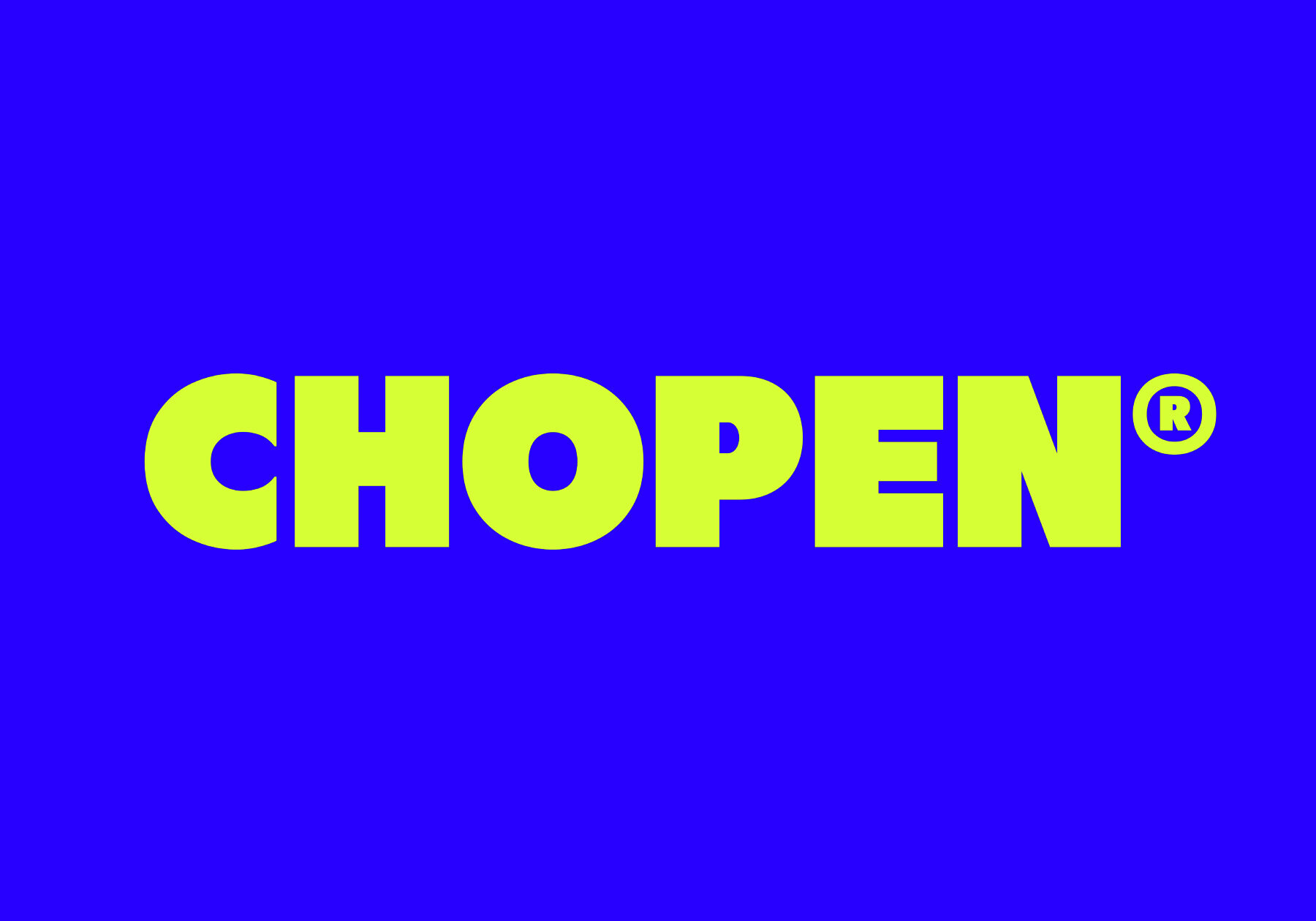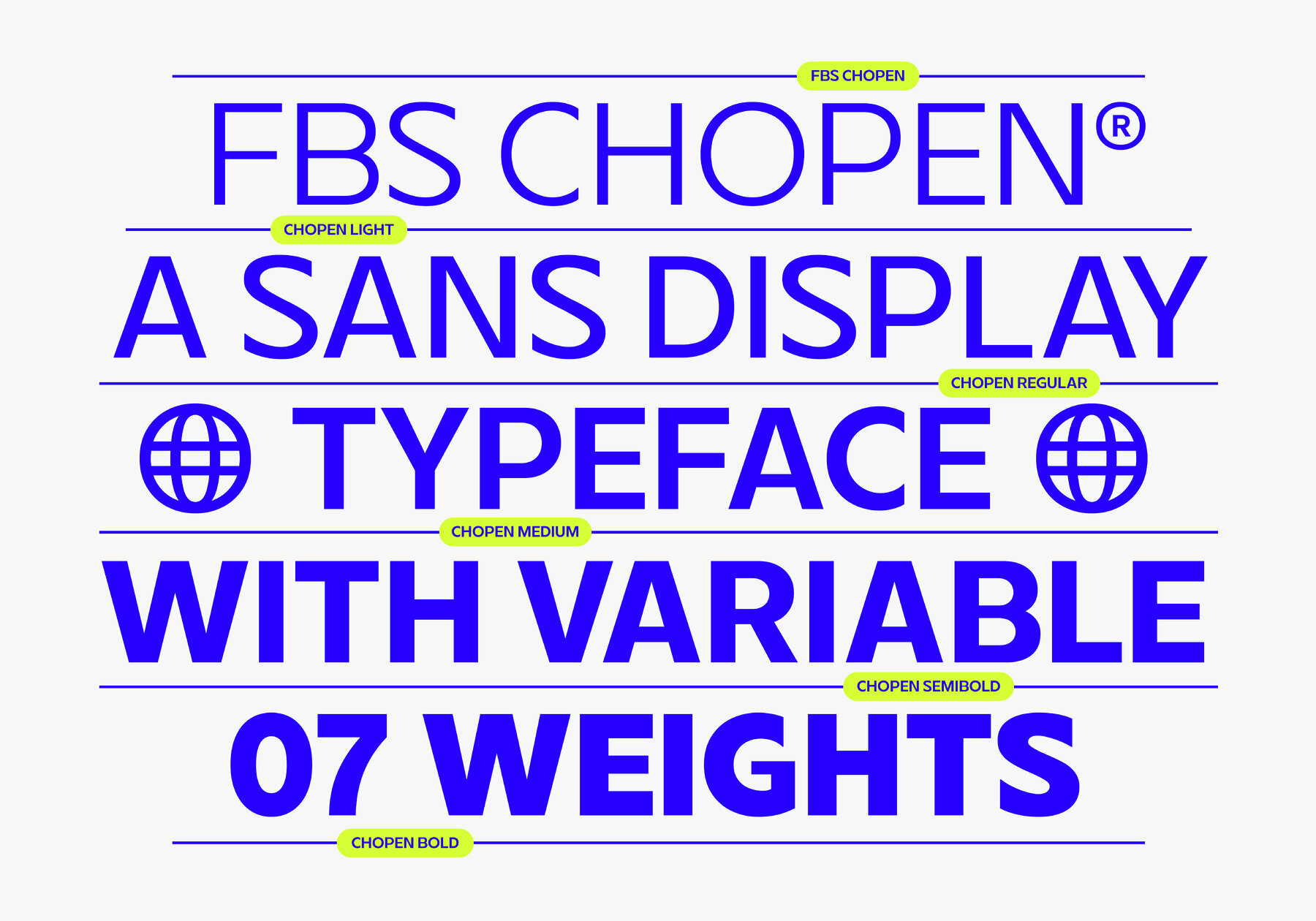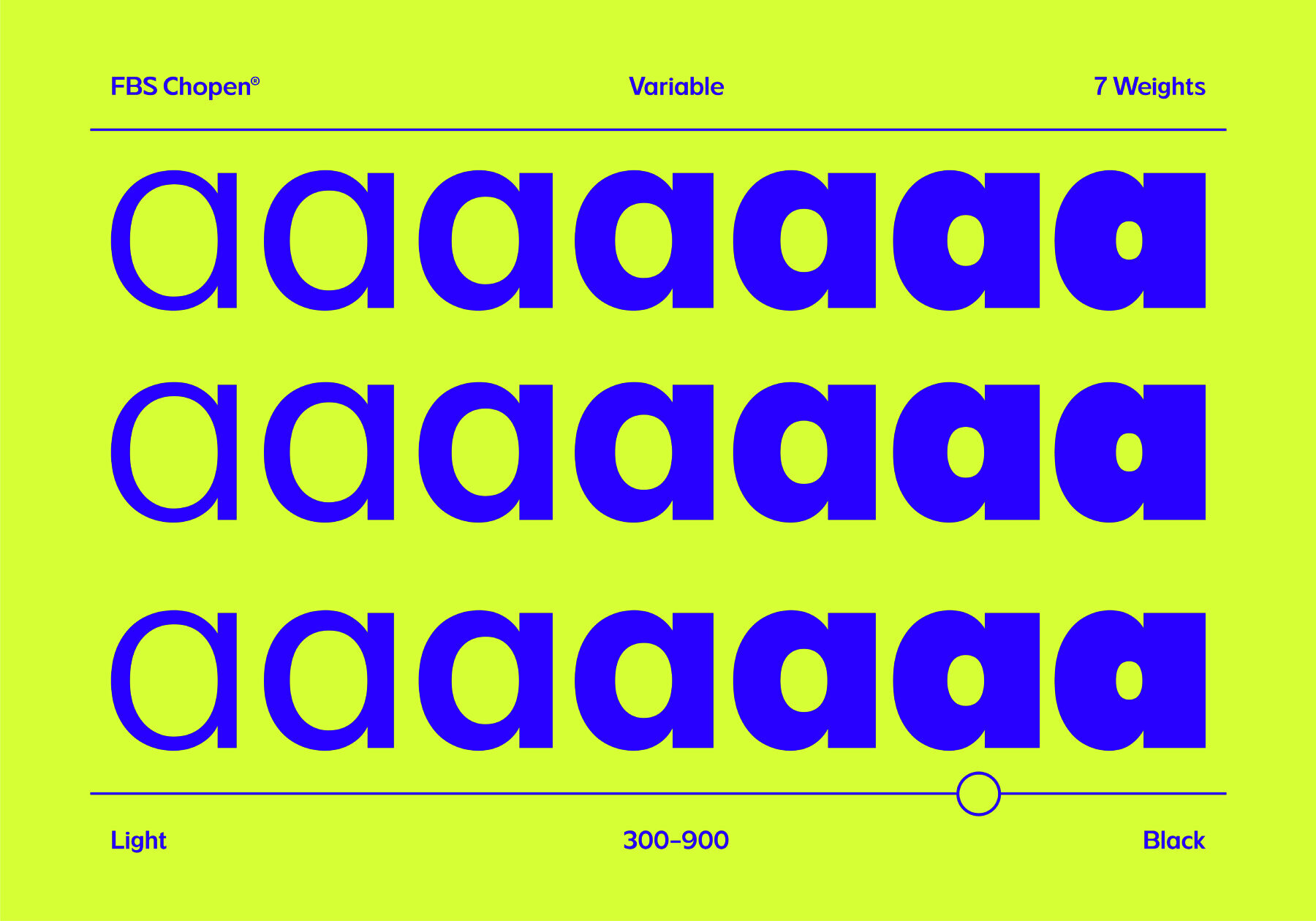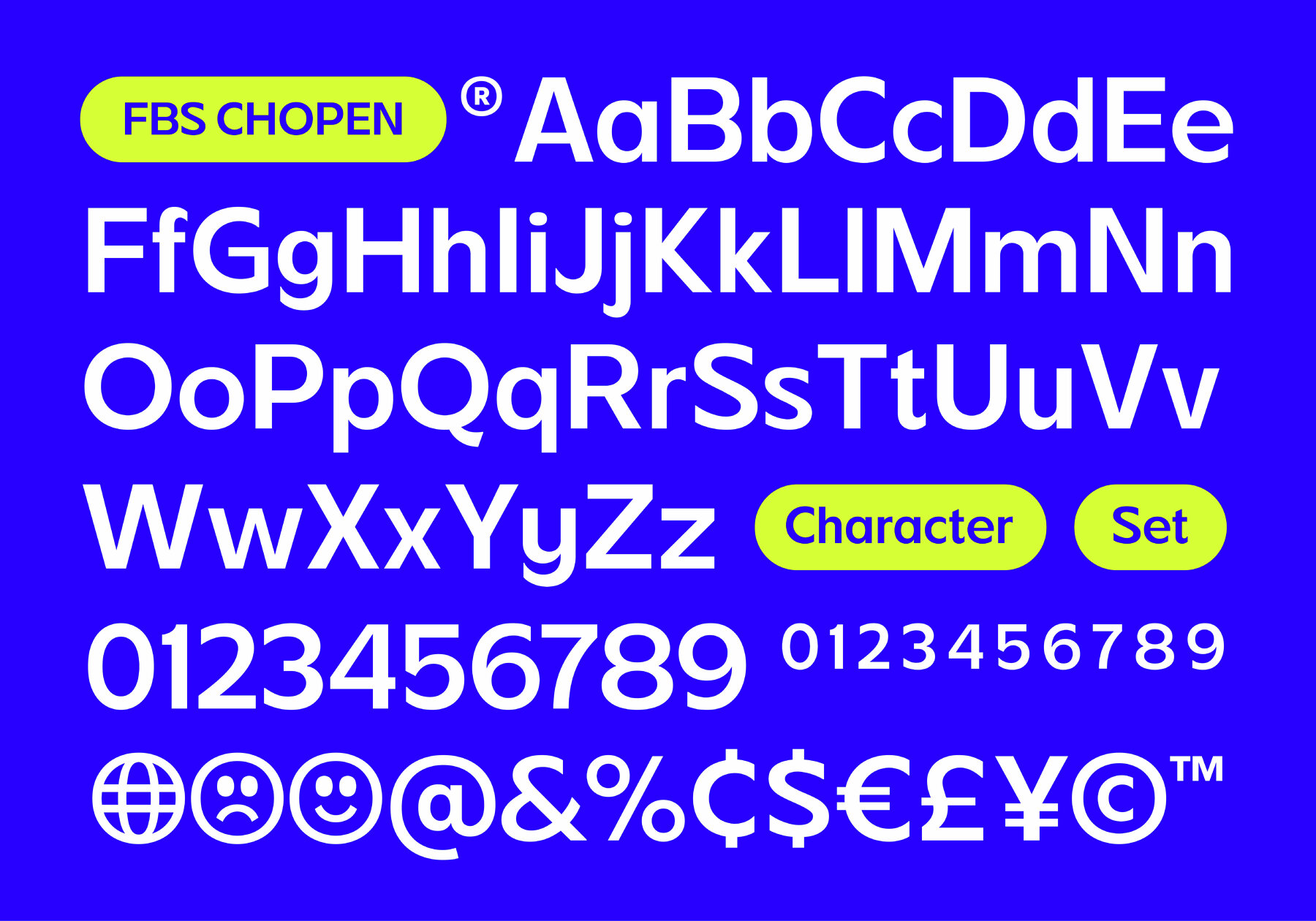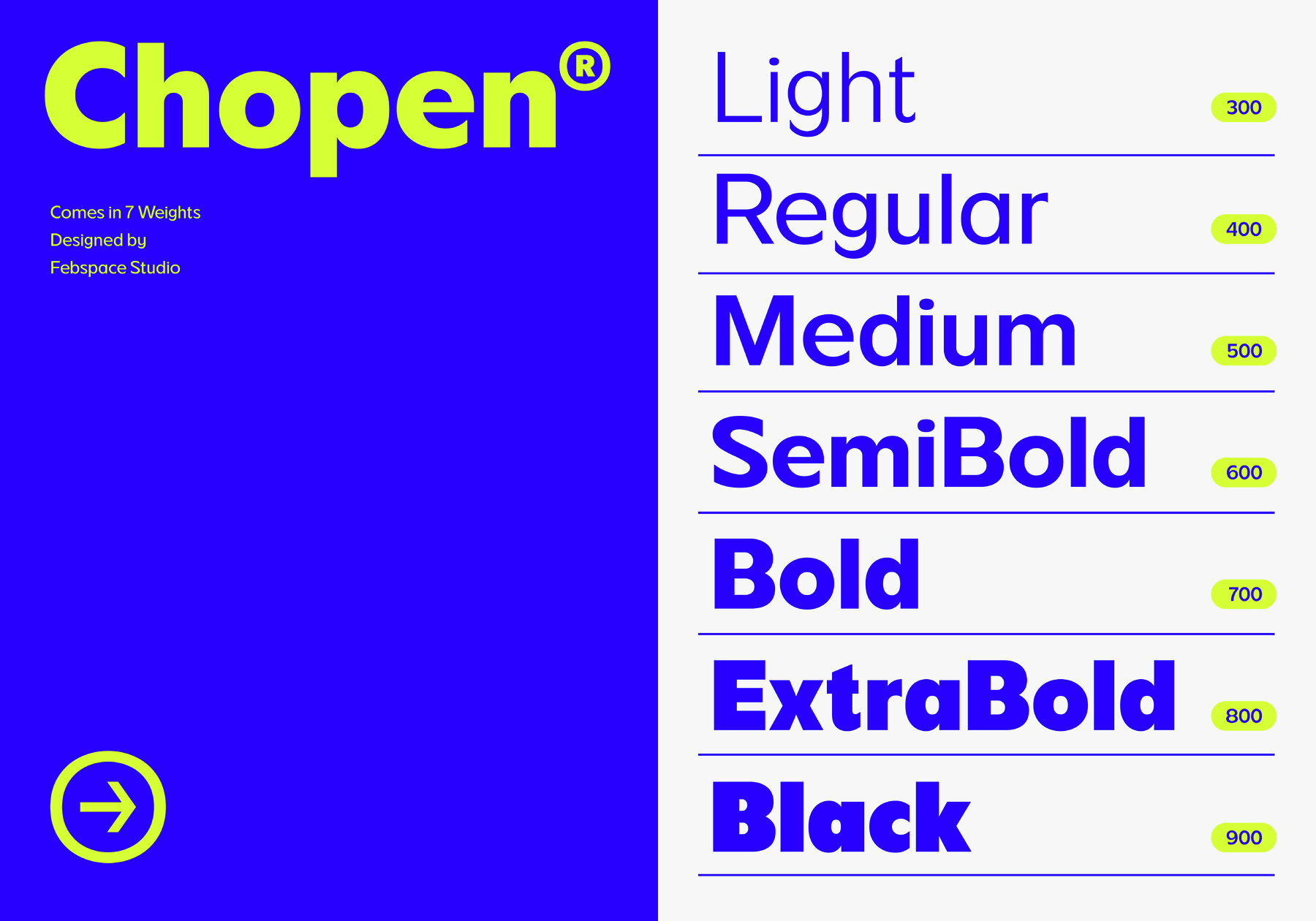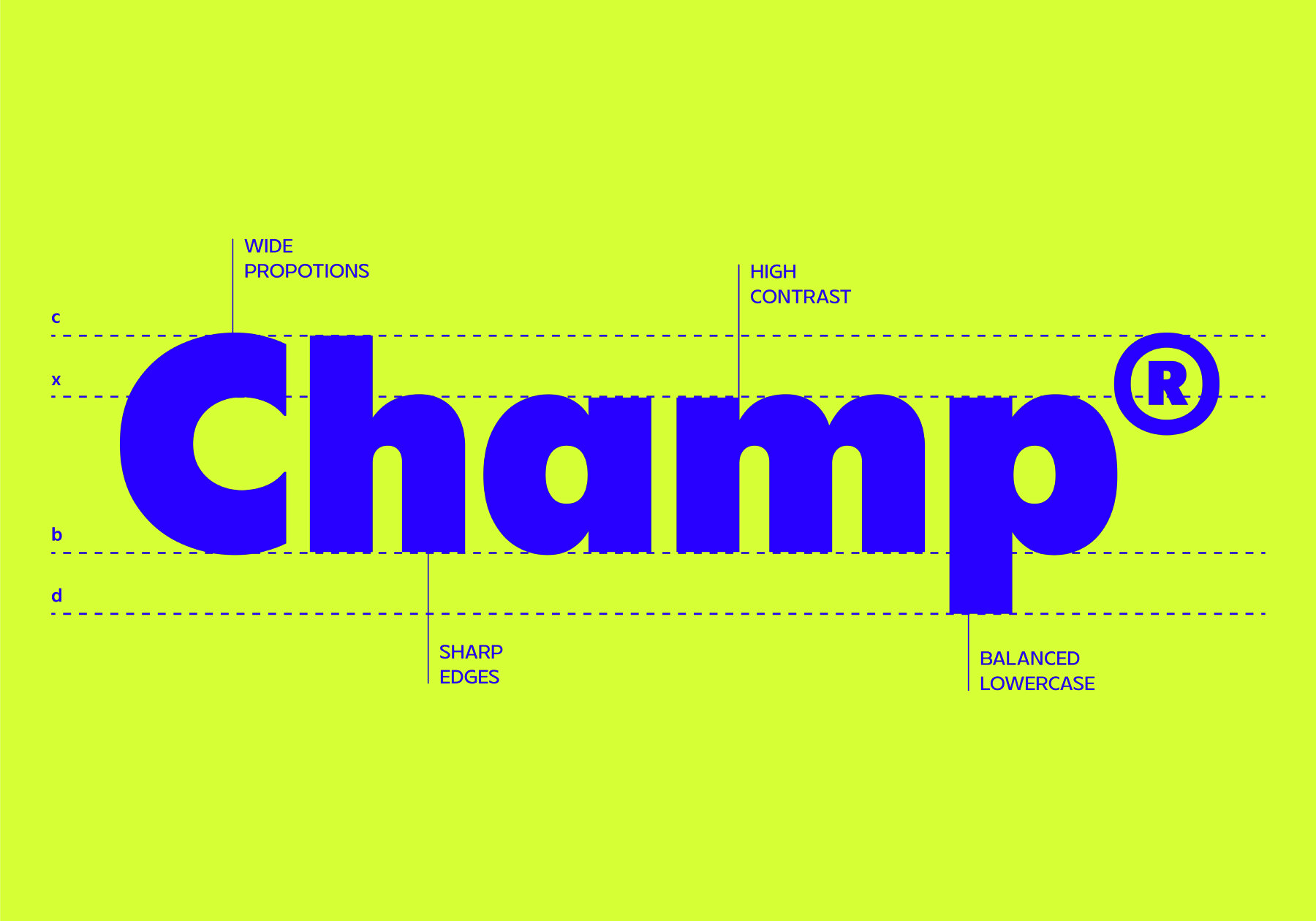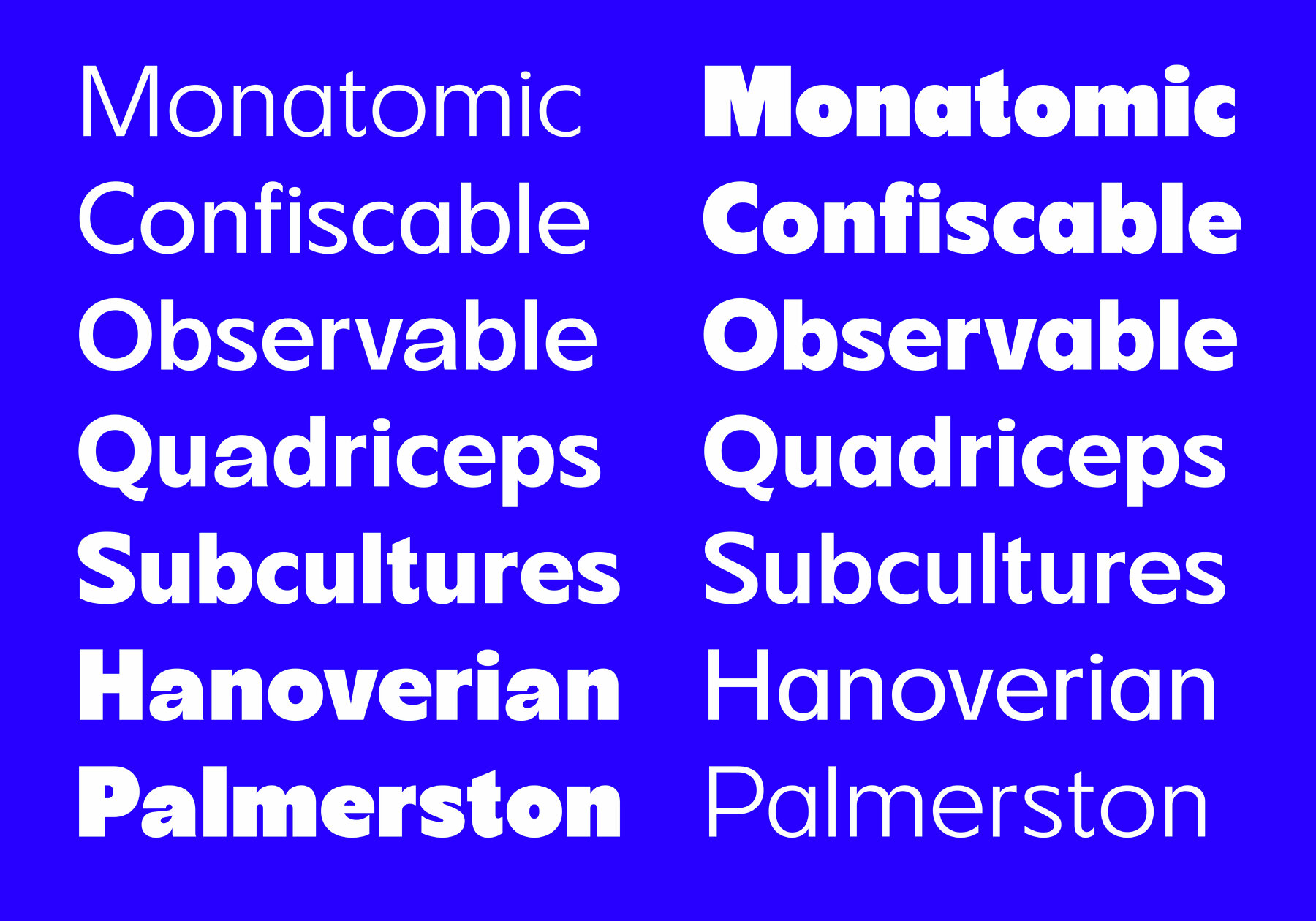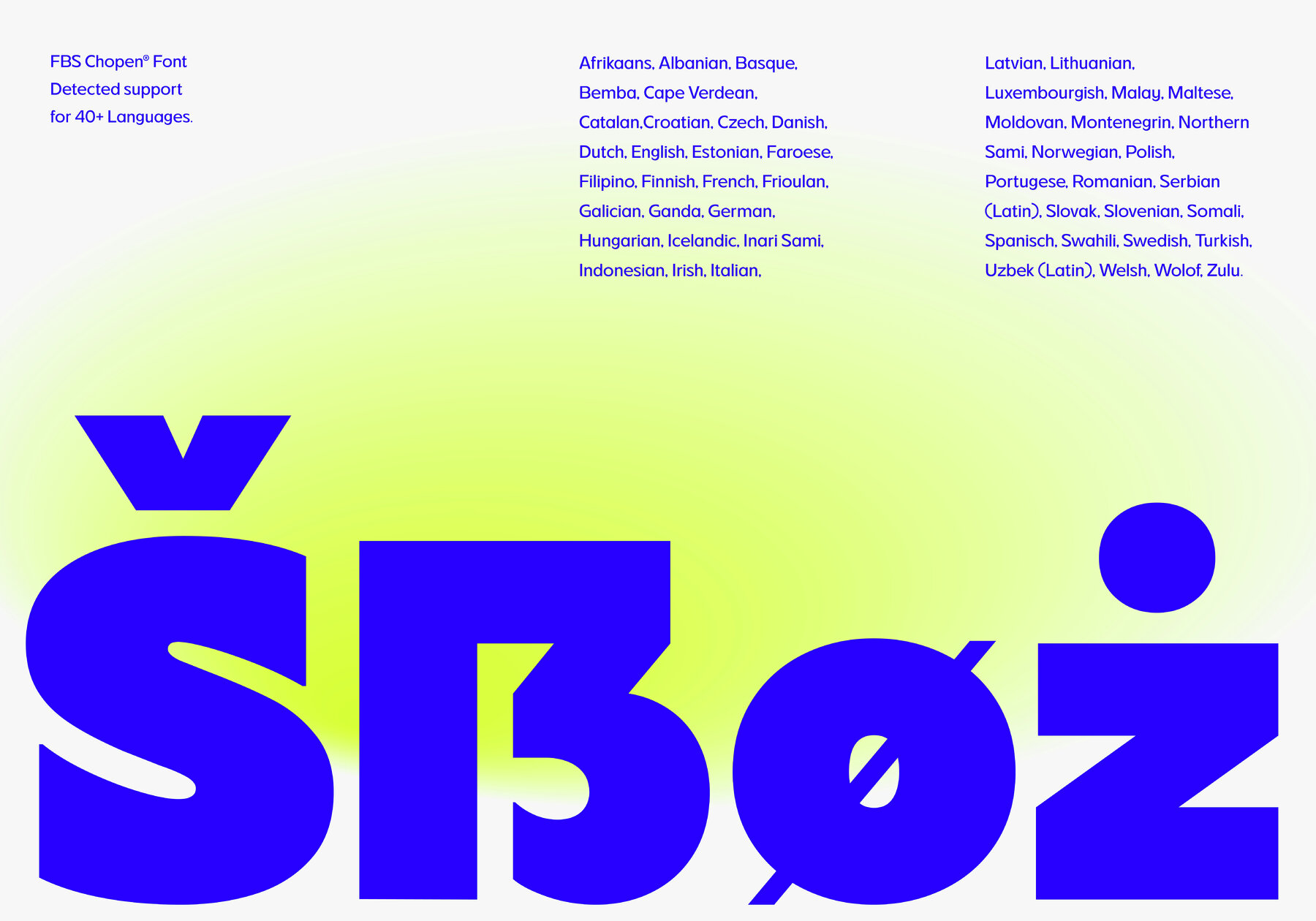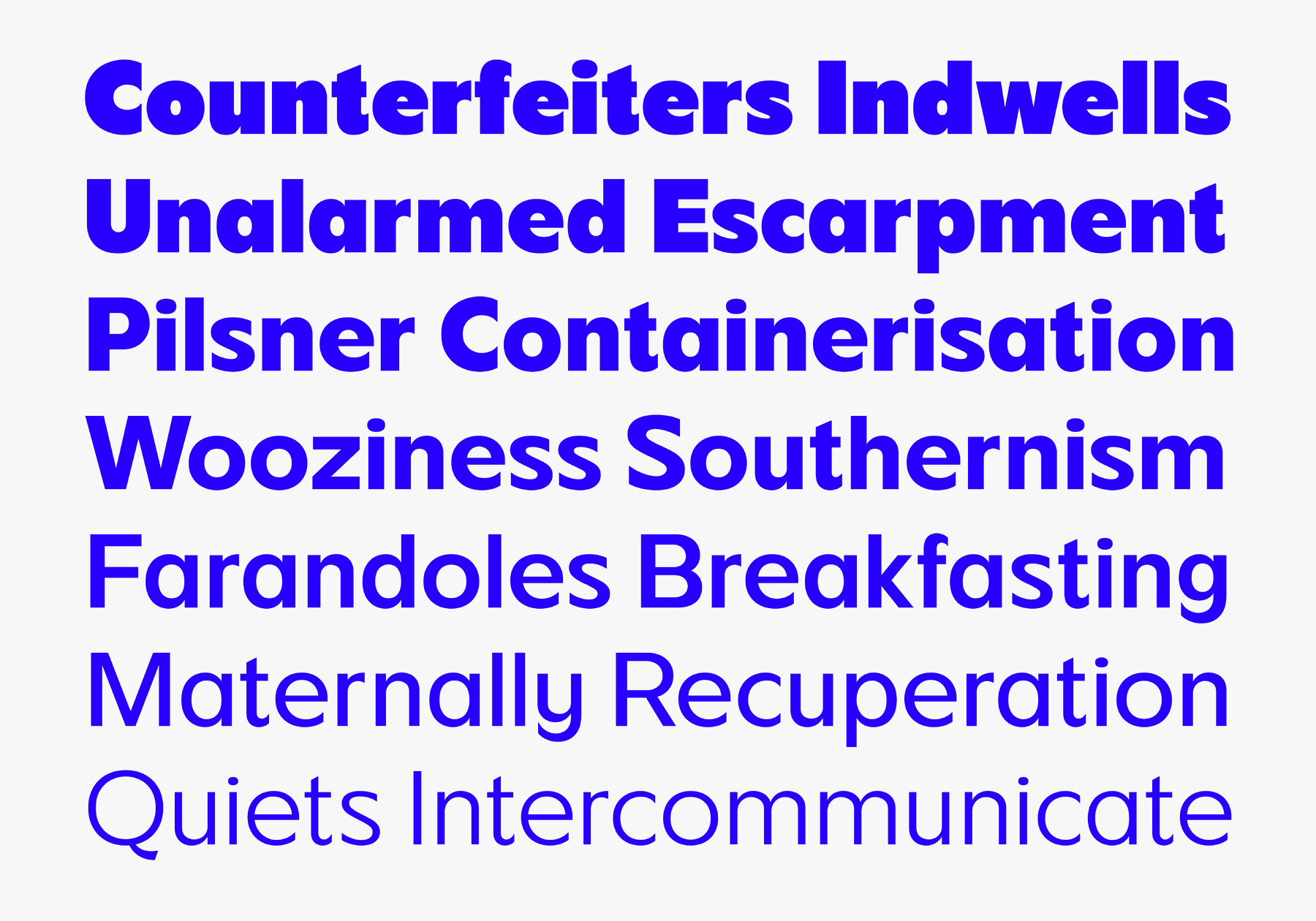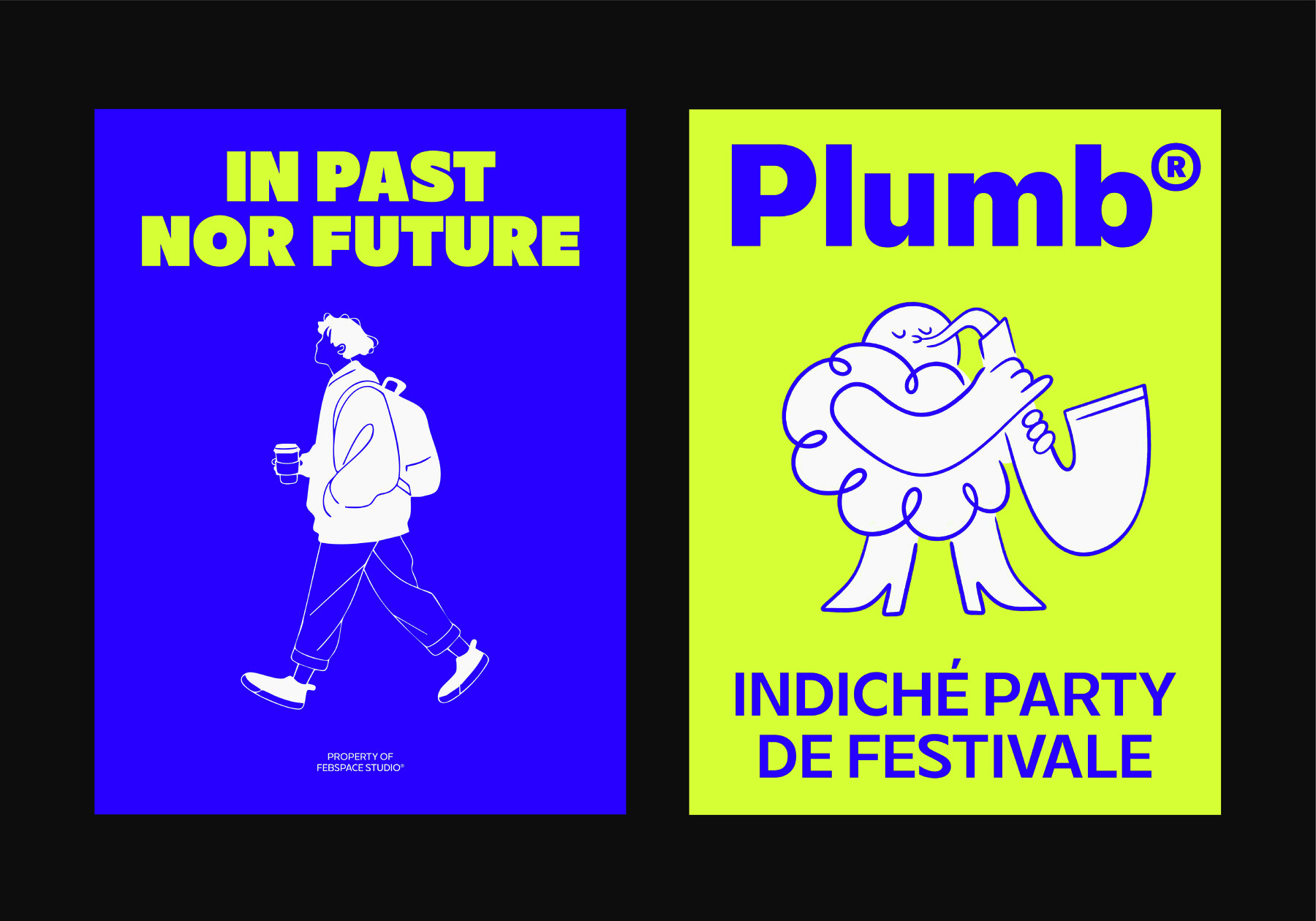
FBS Chopen Font
FBS Chopen delivers a geometric sans-serif font inspired by the retro aesthetics of the 80's, with a modern and minimalist touch. Designed for today’s digital and branding needs, it offers the perfect balance of readability and style. Its clean, structured look makes it an excellent choice for interface design, corporate projects and contemporary visual identities. Extensive Glyph Set and Features Every font in the Chopen family is equipped with over 431 glyphs, offering advanced typographic options to support your creativity:
Font Family Overview
FBS Chopen collection includes seven carefully designed weights, from light to black, providing flexibility for both subtle and bold designs.